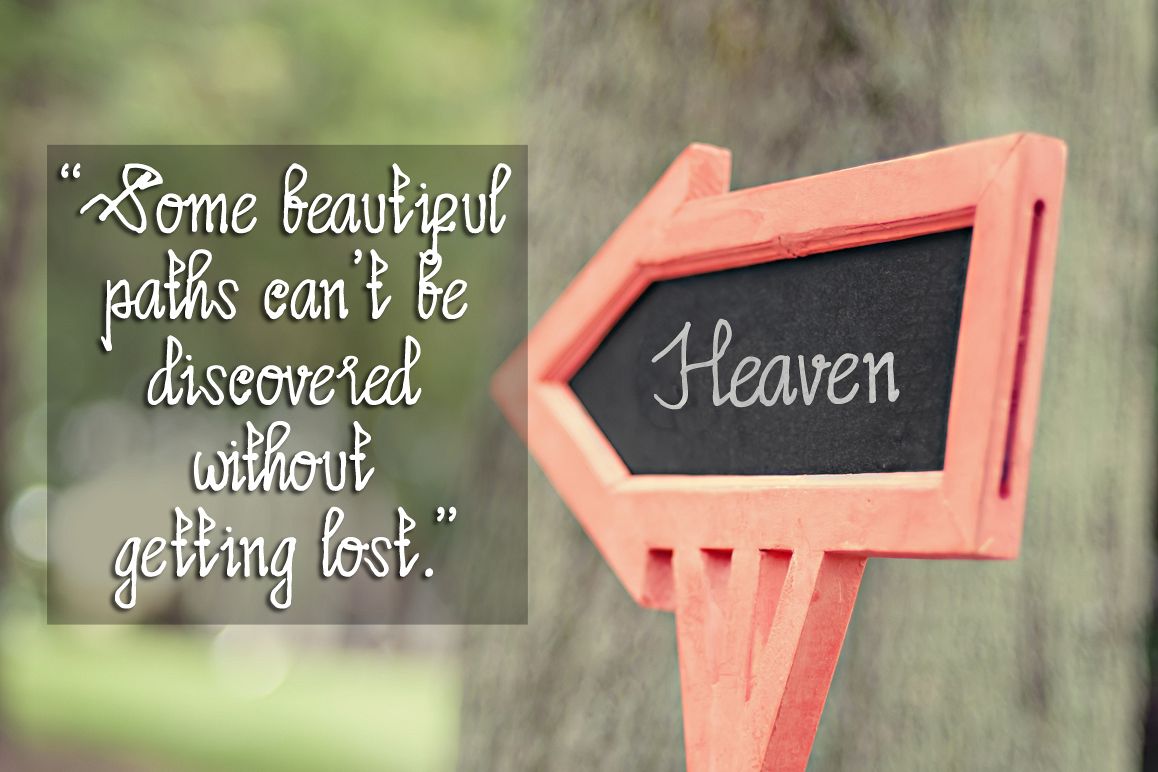
Limpoke Font
Limpoke Font is textured brush font, contemporary approach to design, handmade natural with an less regular baseline. Suitable for use in title design. Such as apparel, invitations, books tittle, stationery design, quotes, branding, logos, greeting card, t-shirt, packaging design, poster and more.
Feature :
• Number
• Puncts